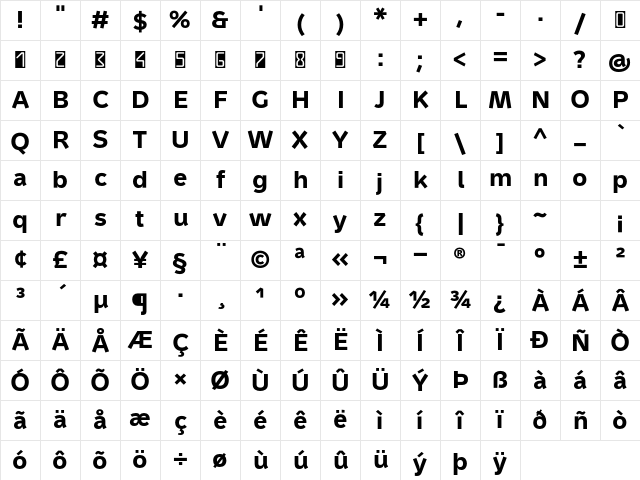
Complete MetronDigita Pro Bold glyph index. Displaying only characters natively supported by MetronDigita Pro Bold font.
MetronDigita Pro has a distinctly futuristic character, with geometric precision and clean angles that feel at home in technology, gaming, and sci-fi contexts. Its bold stroke weight gives it real presence on the page.